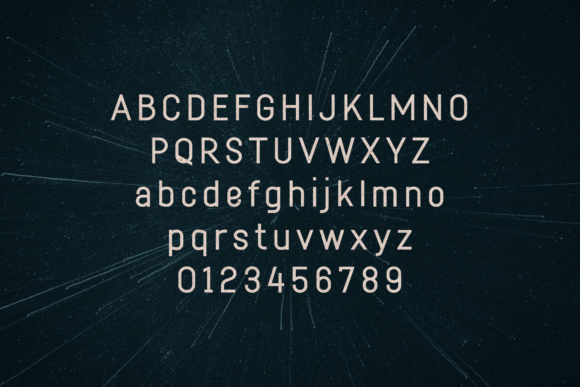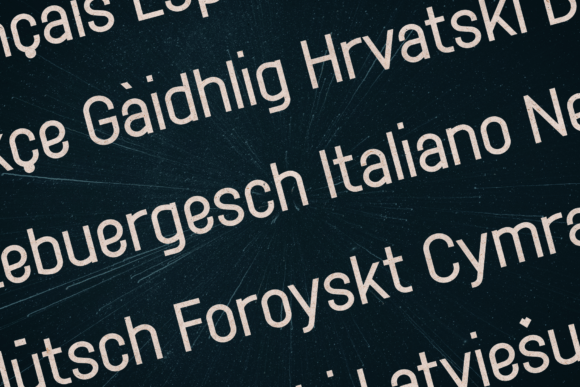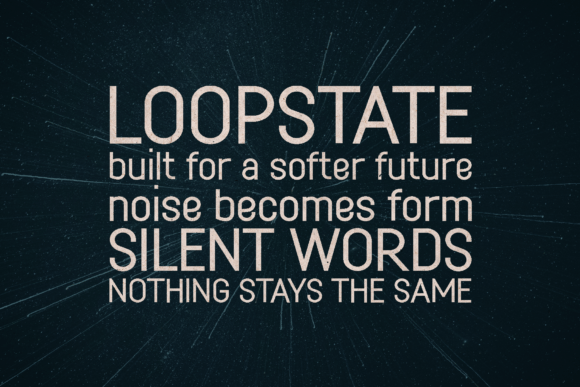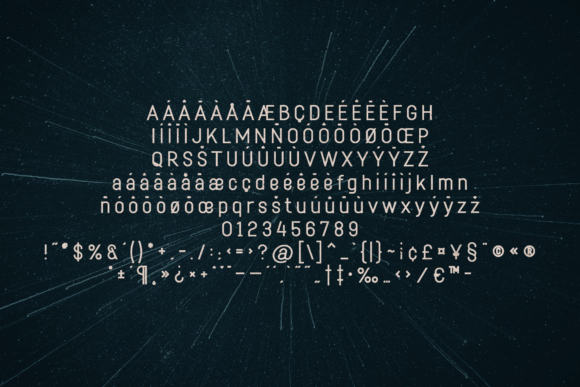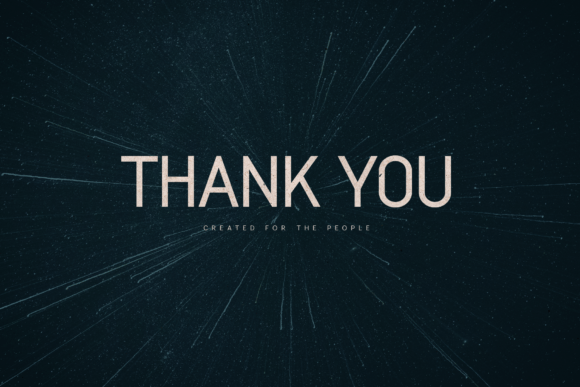
Introduction to Cult Void Font
You’re in the midst of a creative sprint, racing against time to bring your vision to life. Your design is almost there, but something’s missing – a font that exudes confidence and clarity. That’s where the Cult Void Font comes in, a modern minimal sans serif font designed to give your creative project the bold statement it deserves.
With its clean geometry and balanced proportions, the Cult Void Font is the perfect design resource for designers seeking strong typography without unnecessary noise. Whether you’re working on a branding project, crafting a poster, or designing a UI concept, this font’s simplicity allows content to breathe while still delivering impact and authority.
Key Features of Cult Void Font
- High-quality, professional font design perfect for creative projects and design resources.
- Includes a comprehensive character set with support for Latin, Cyrillic, and Greek alphabets, making it suitable for multilingual designs.
- Unique, avant-garde design aesthetic that adds a touch of mystery and sophistication to any creative project.
Honest Review: Cult Void Font
I recently stumbled upon the Cult Void Font while working on a creative project and I must say it’s been a great addition to my design resource library. This font has a unique aesthetic that adds an air of mystery and sophistication to any design.
What works well: ✨ The high-quality design of the font is evident from the first glance. The clean lines, intricate details, and the transparent background make it a versatile choice for any creative project. The font is also highly legible, even at smaller sizes, making it perfect for body text.
- Supports a wide range of languages
- Available in various weights and styles
Any limitations: ⚠️ The font may not be suitable for projects that require a lot of bold, eye-catching typography. Additionally, the transparent background may not be ideal for designs with complex backgrounds or gradients.
Overall, I’m impressed with the Cult Void Font and would definitely recommend it to designers looking for a high-quality, versatile font for their creative projects. It’s a great addition to any design resource library and can add a touch of elegance to any design.
The Cult Void Font is ideal for creative projects, such as graphic design, logo creation, and branding. It’s also suitable for presentations, reports, and documents that require a unique and professional look. Use it to create eye-catching social media posts, graphics, and other visual content.